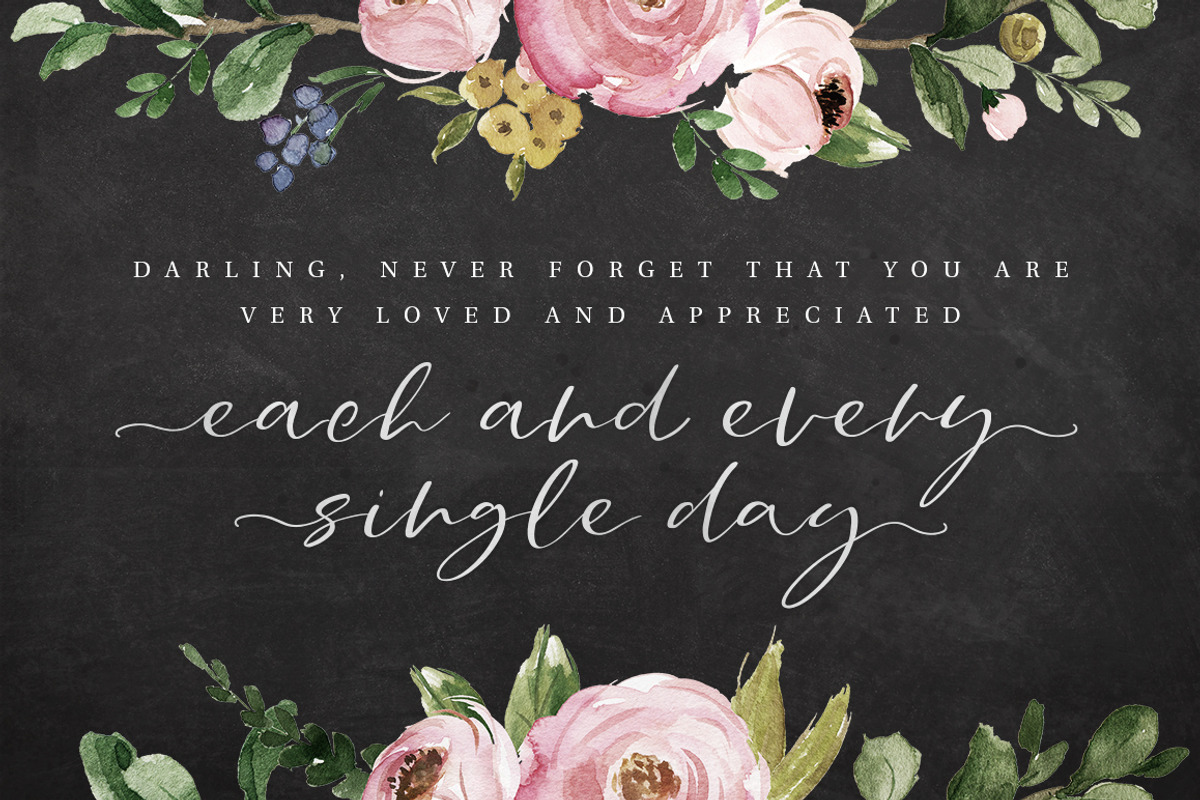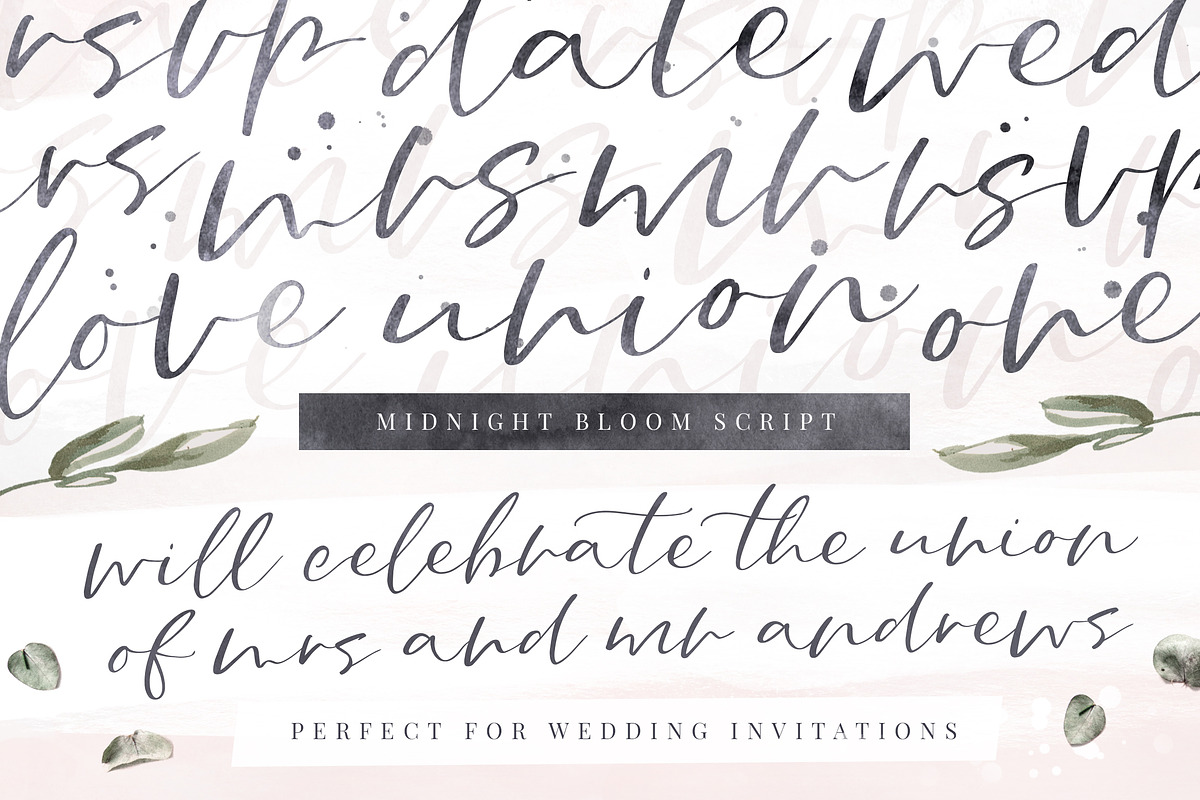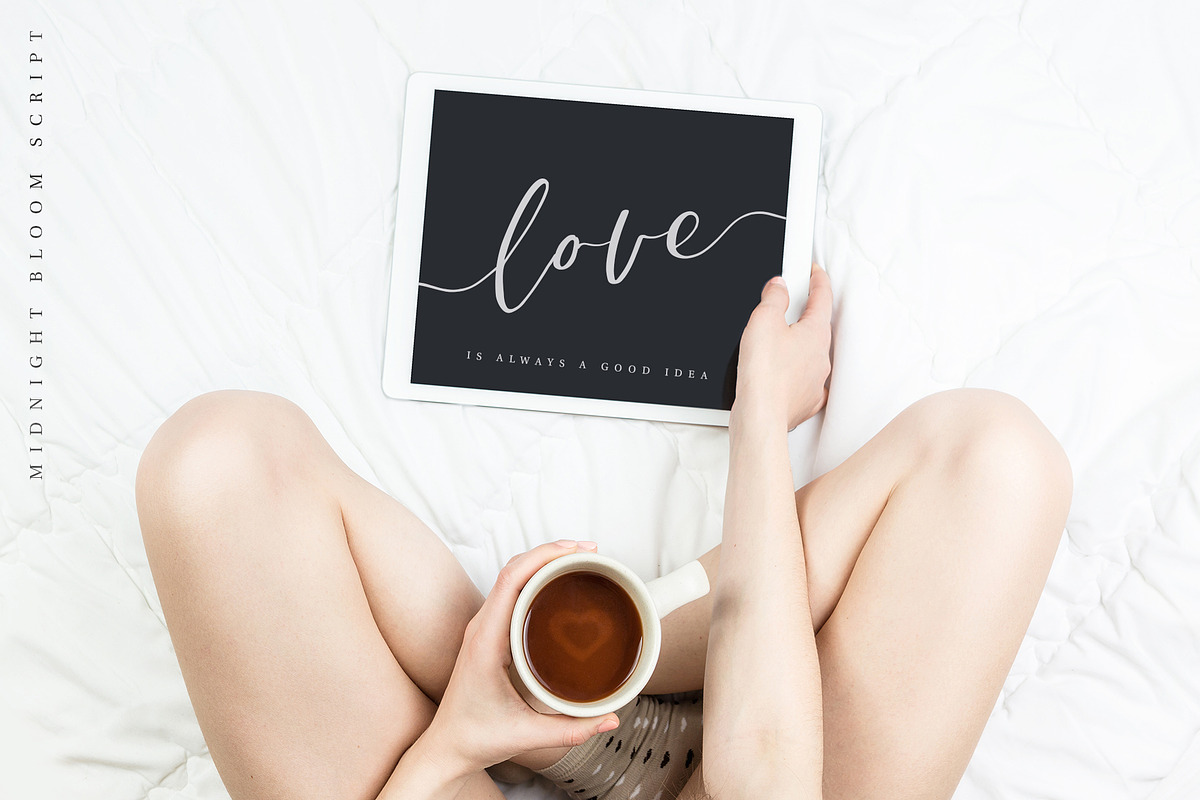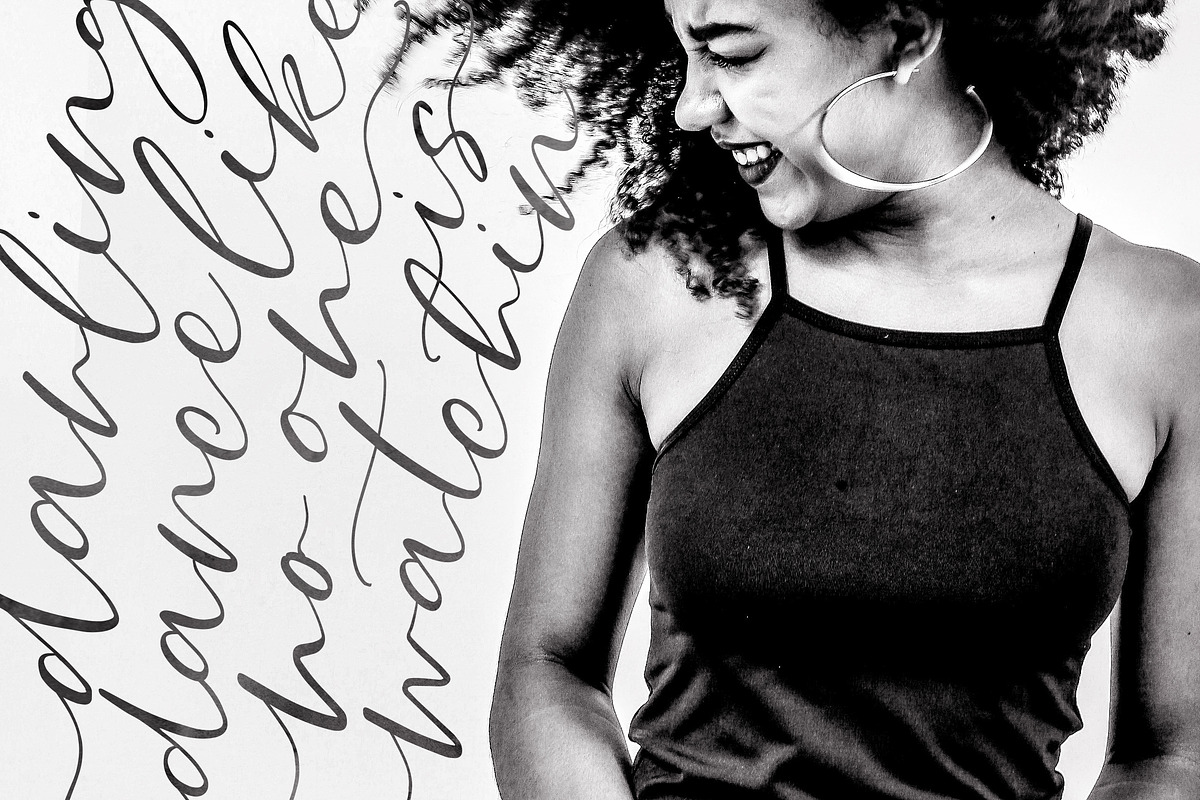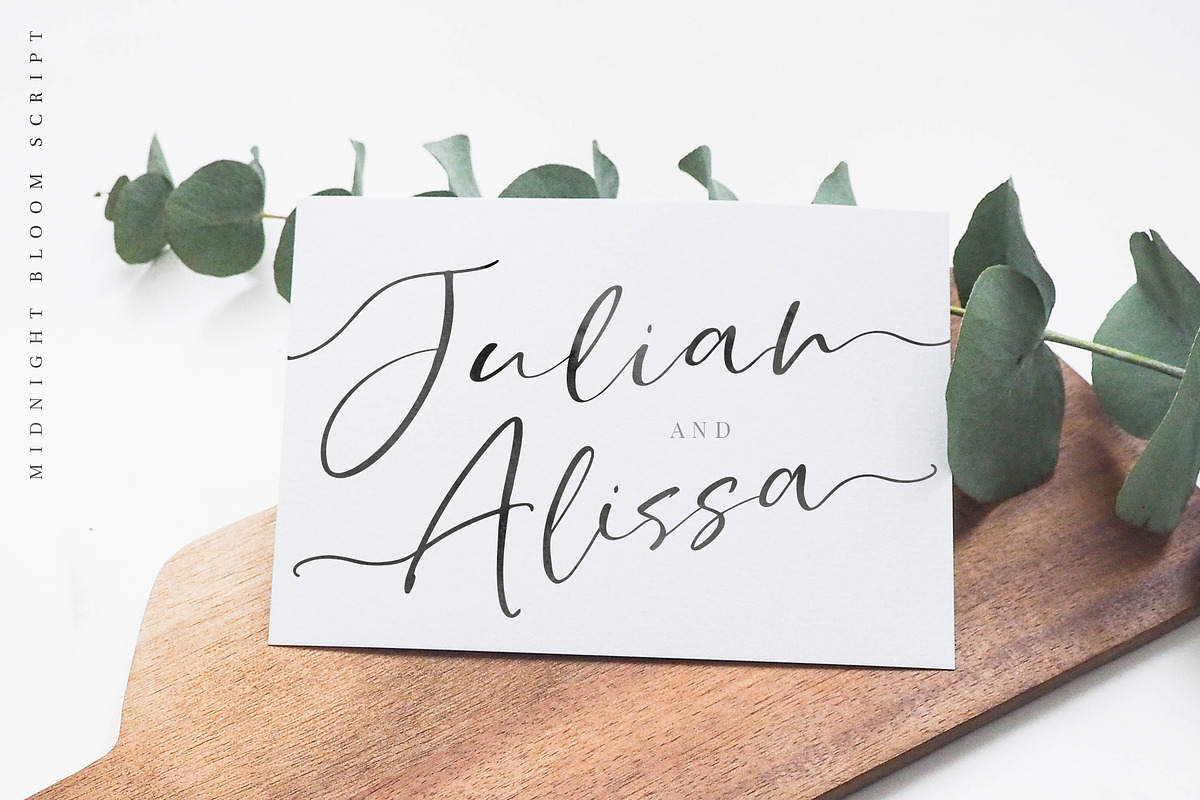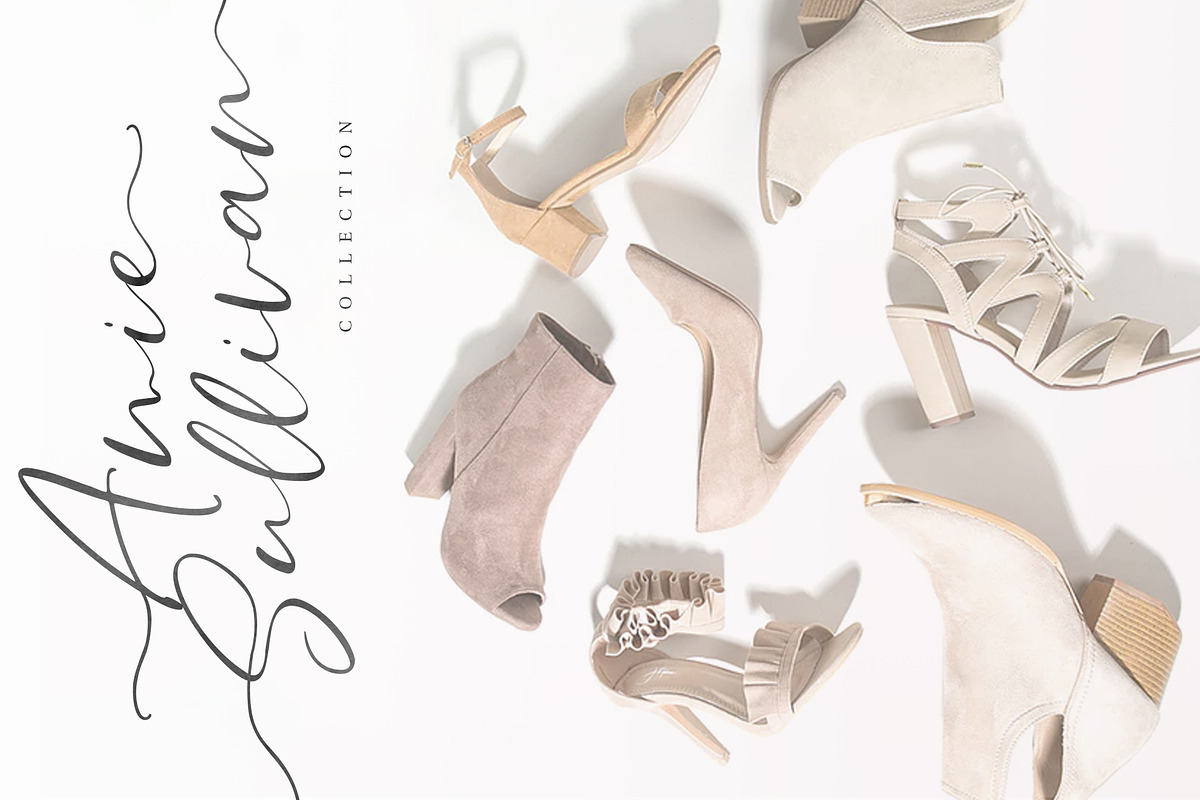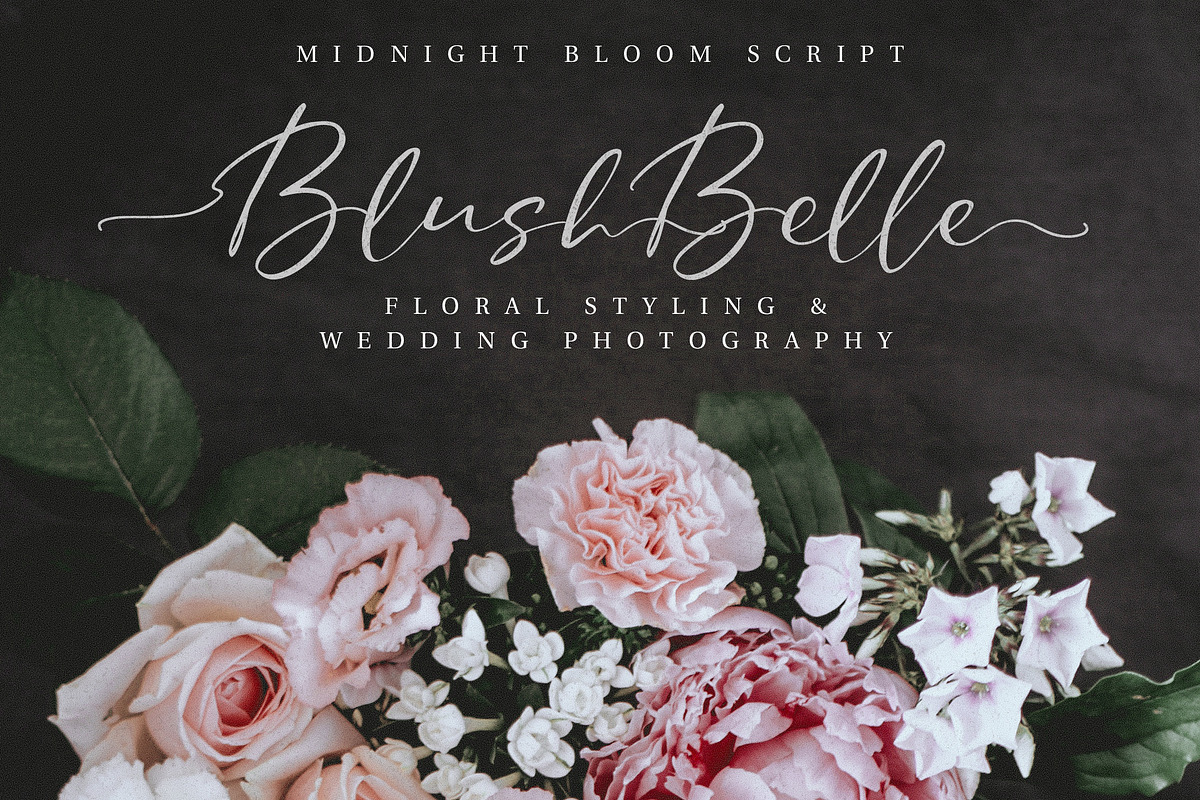
Midnight Bloom Script +18 Free Logos
♥ ♥ Introducing Midnight Bloom! ♥ ♥
... a sweet & romantic script typeface, perfect for feminine website + blog branding, prints, wedding suits, invitations, blog headers & lovely Instagram and social media quotes and graphics!
Midnight Bloom comes with a whole set of lowercase stylistic alternates, lowercase double letter ligatures for a natural, handwritten look and pre-designed ( pre-attached ) beginning and end swashes for both uppercase, lowercase and alternate characters and 18 feminine, bonus logo templates to play with. :)
♥ 18 BONUS LOGO TEMPLATES ♥